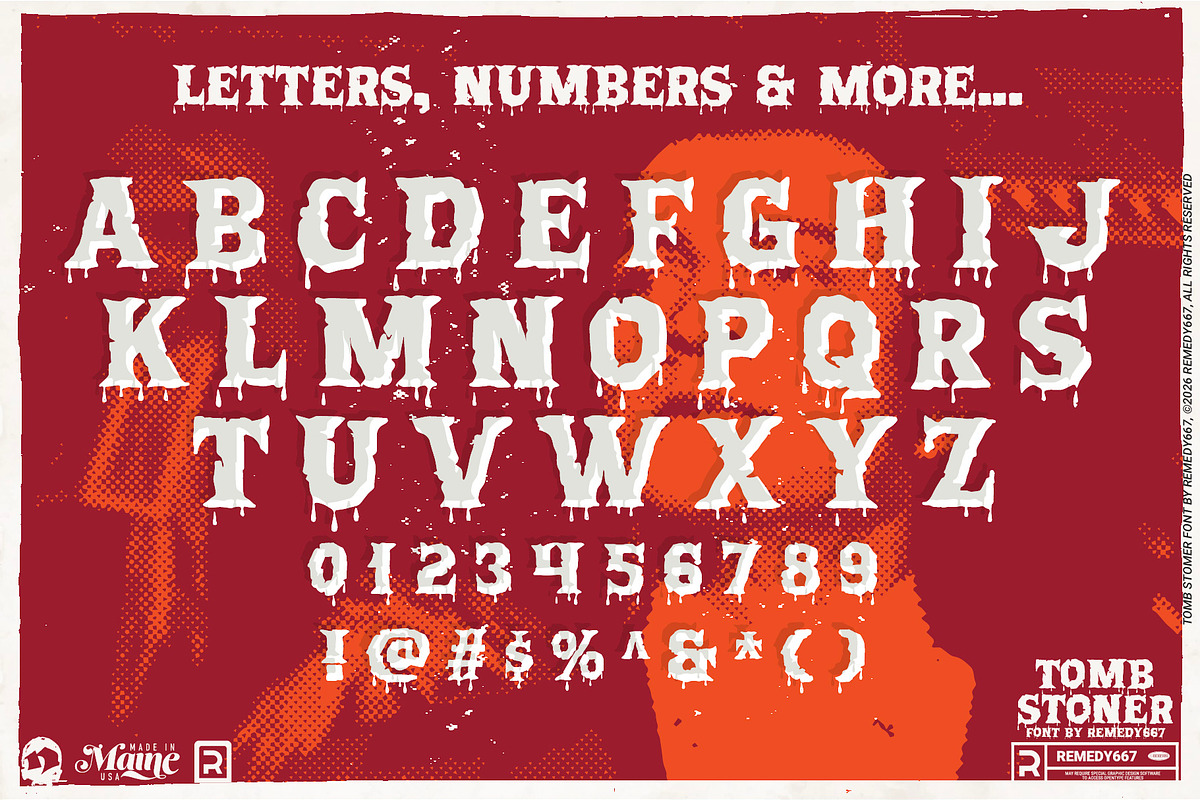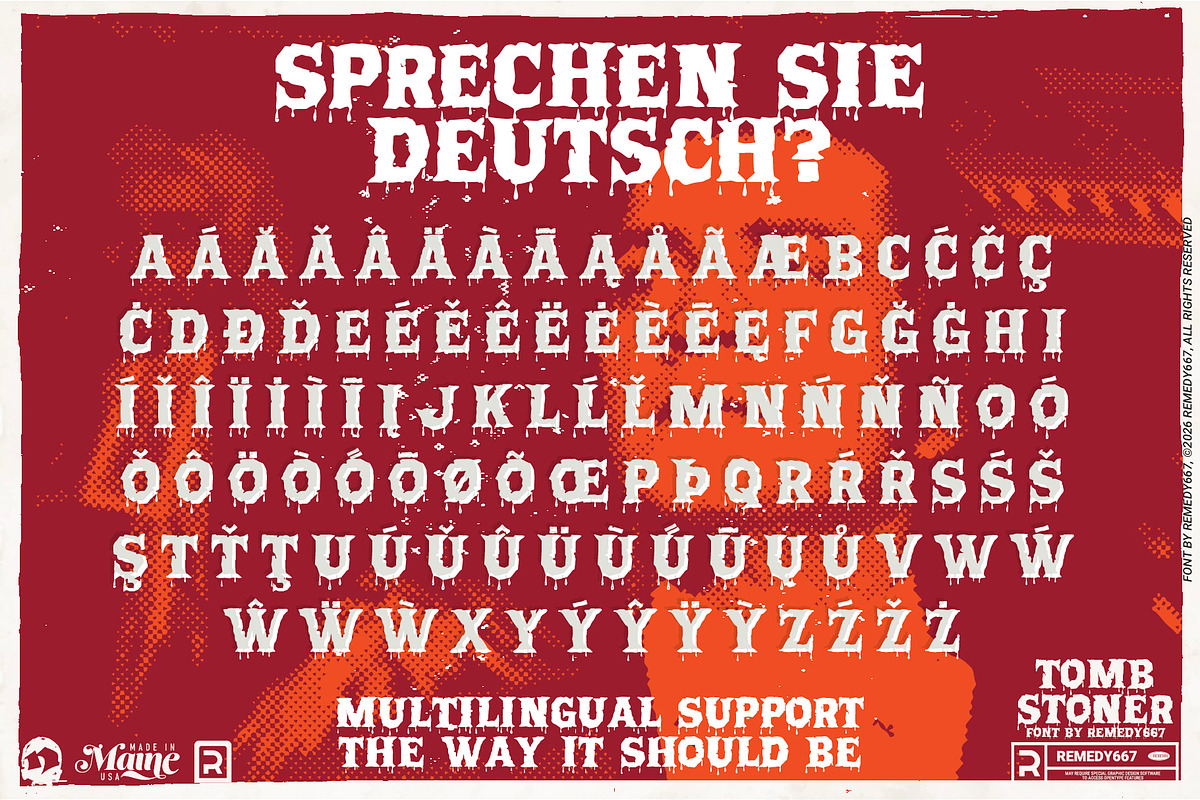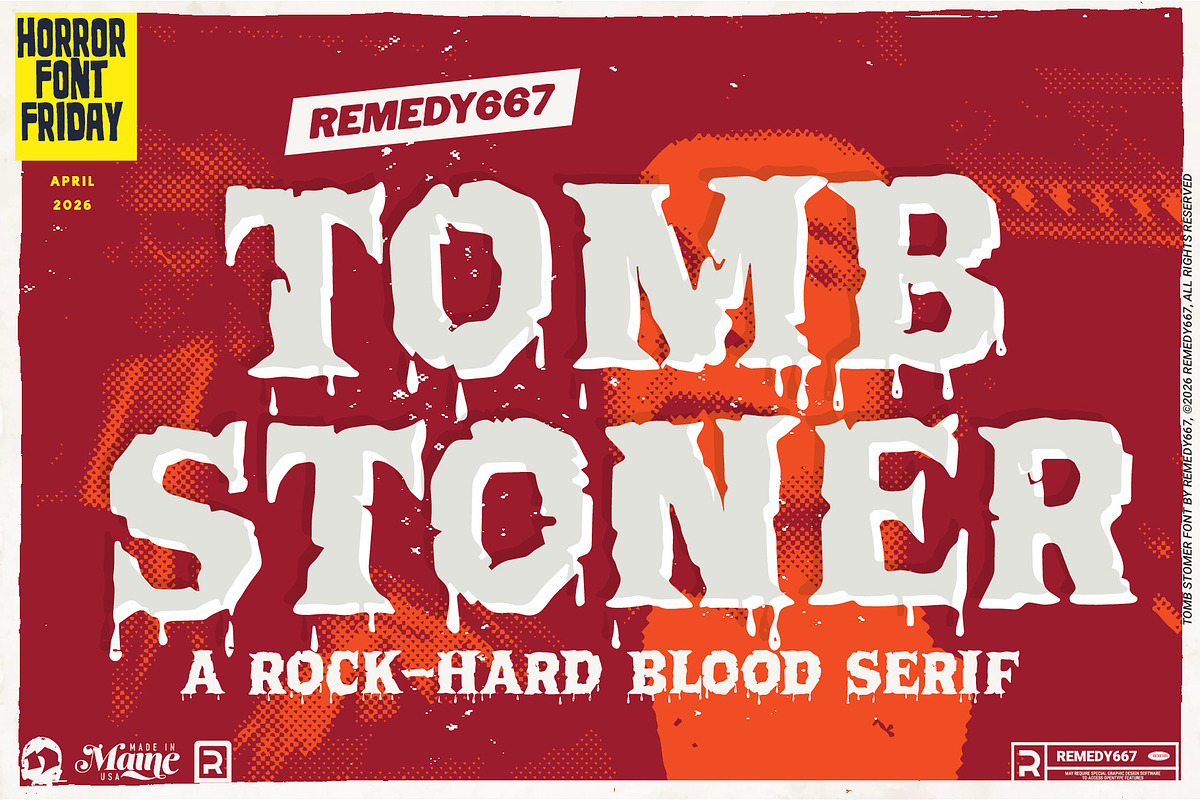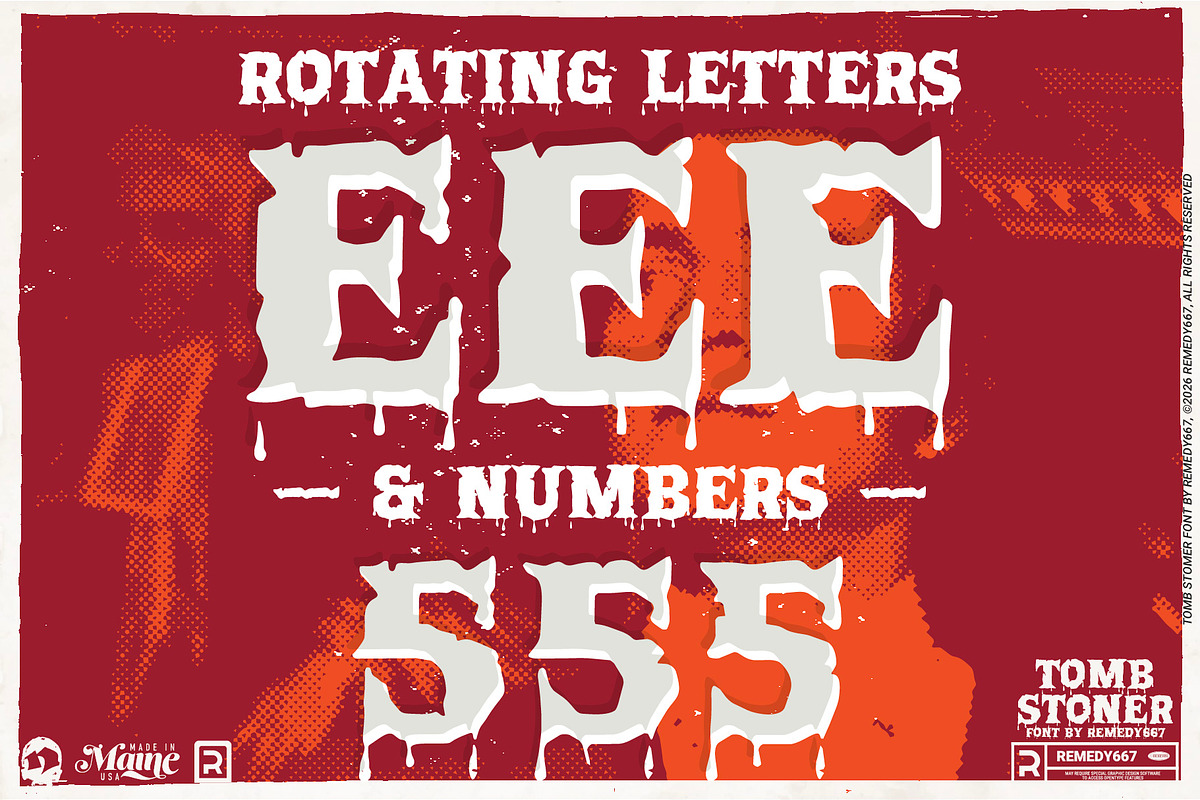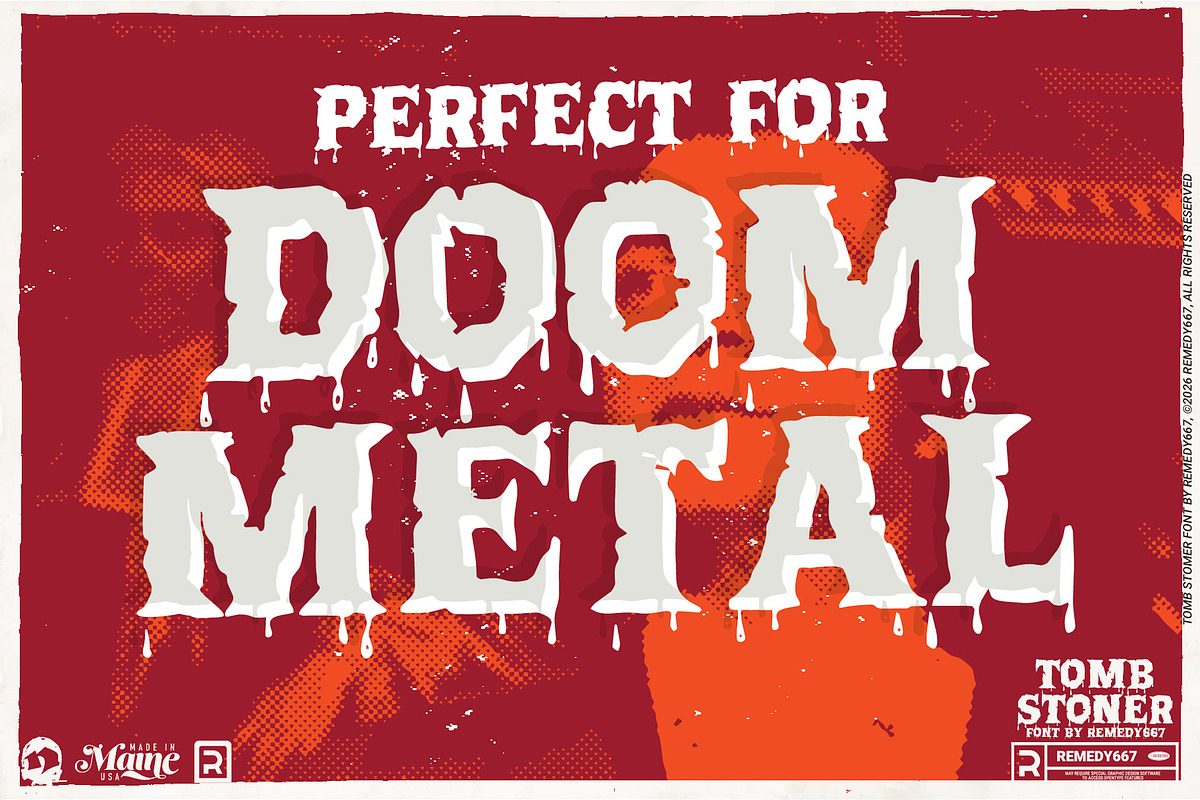
Tomb Stoner - Doom Metal font
Carved deep into the headstone of evil incarnate comes Tomb Stoner! From the blood-soaked lettering in the Blood Suckers / Blood Thirst press book, Tomb Stoner is a bold serif monstrosity. Dripping with dread and standing bold demanding attention, standing tall like a tombstone.!
Built for titles that refuse to stay buried, Tomb Stoner delivers a powerful, attention-grabbing presence with a sinister vintage edge. Dripping descenders, corroded serifs and shifting letterforms give every word a living, breathing unease.
- Bold serif lettering with dripping horror details
- Contextual alternates for rotating, varied letterforms
- Multilingual support for worldwide terror
- Perfect for strong, attention-grabbing horror titles